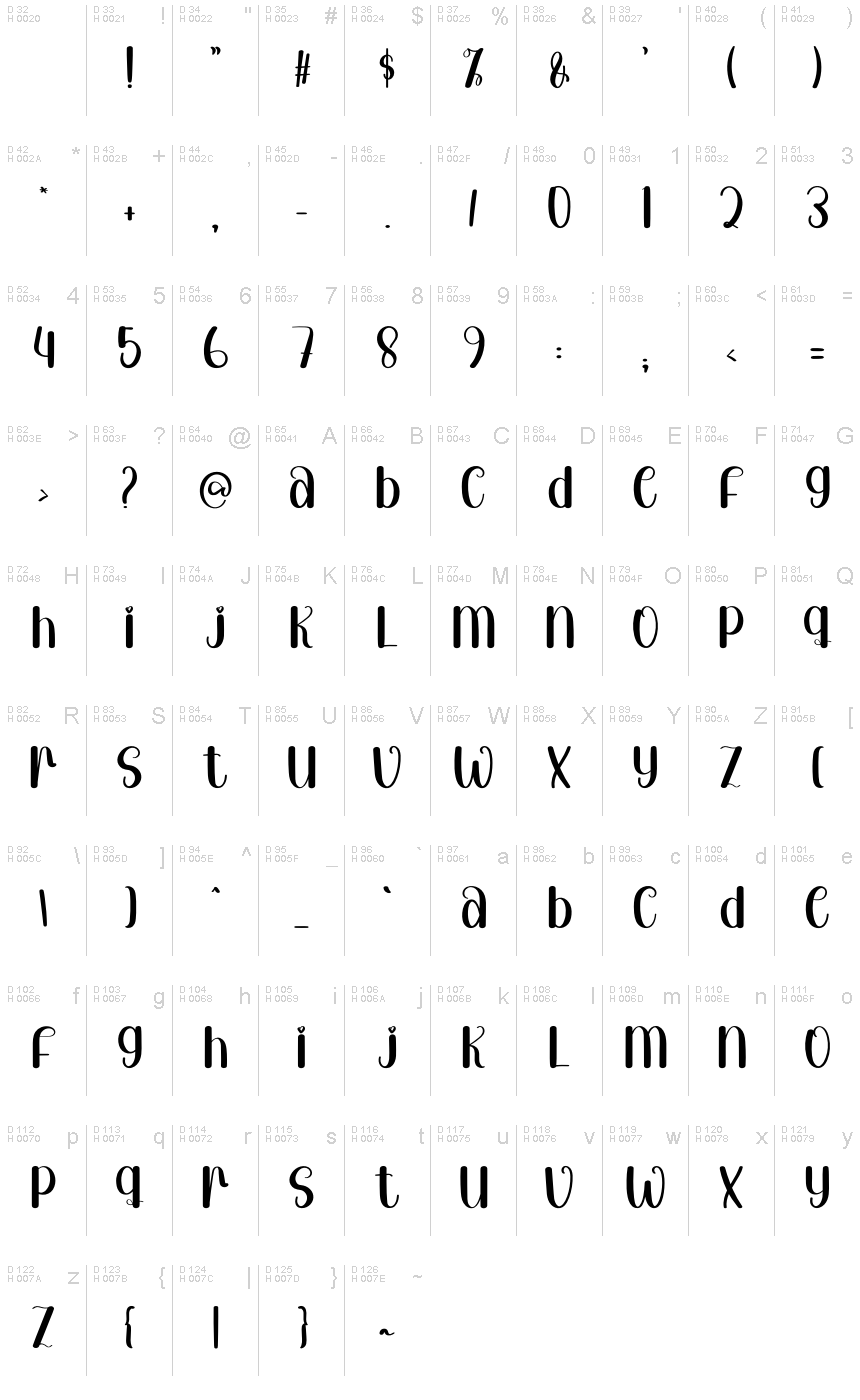
Staycool
Staycool is a captivating font that exudes a smooth, brush-like elegance. Designed by PiPi Creative, this typeface boasts striking, organic strokes that seamlessly flow together, creating a sense of effortless sophistication.
Its unique character shapes and subtle variations lend an alluring, hand-crafted aesthetic, making it a versatile choice for a wide range of design applications – from editorial layouts and branding to packaging and event materials.
Staycool's refined, yet approachable style effortlessly blends traditional calligraphic influences with a modern sensibility, offering designers a compelling typographic solution for projects that require a touch of distinctive flair.